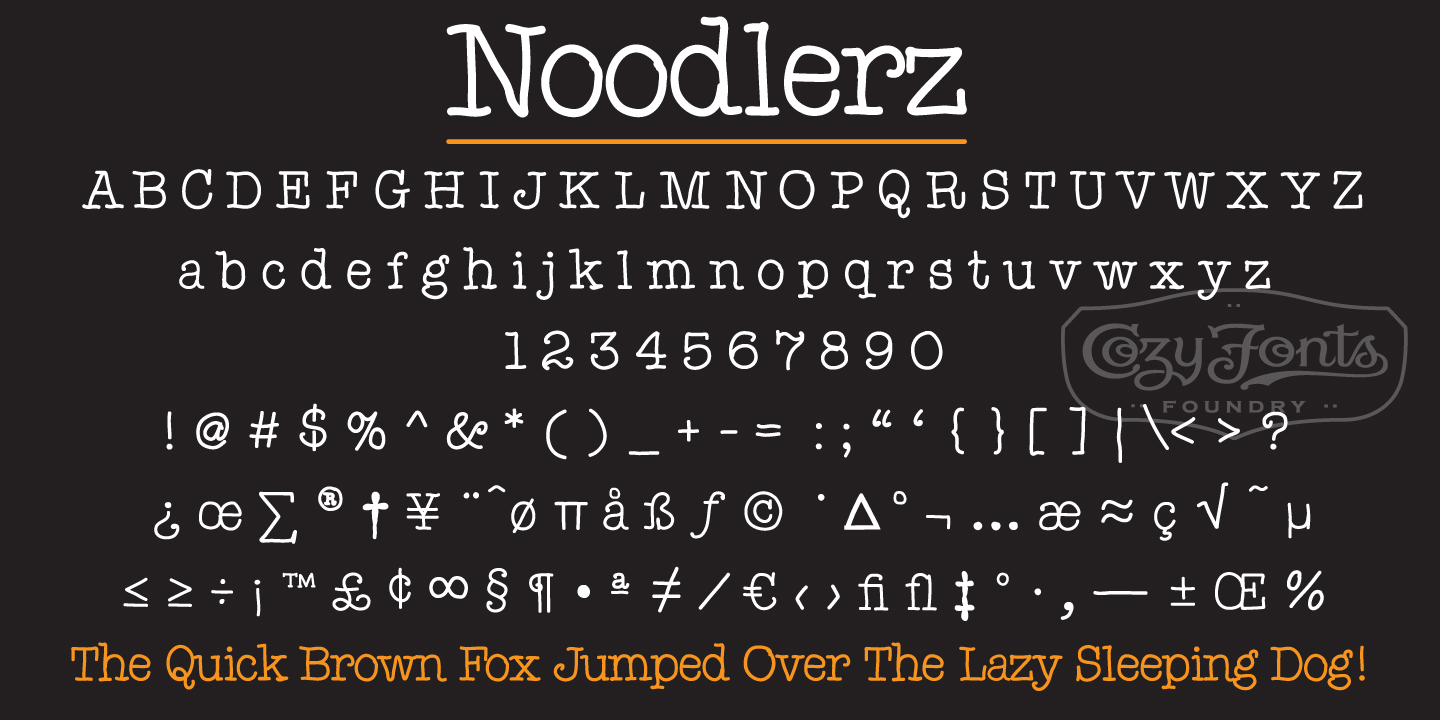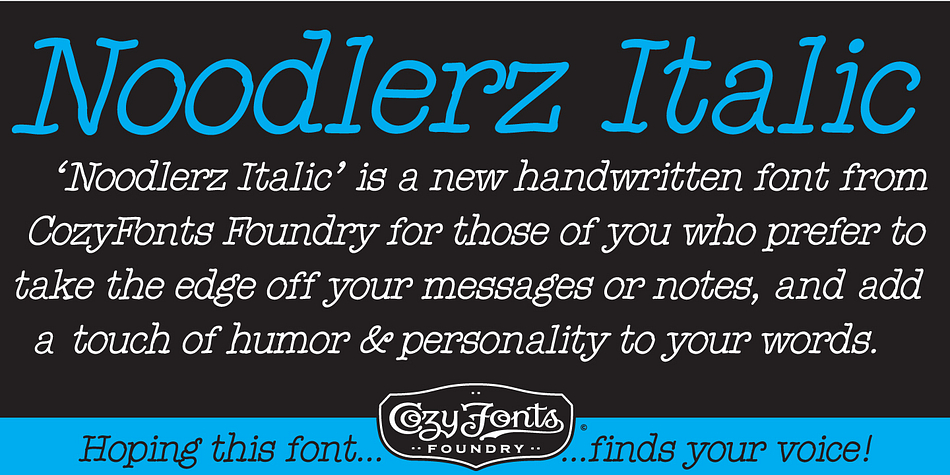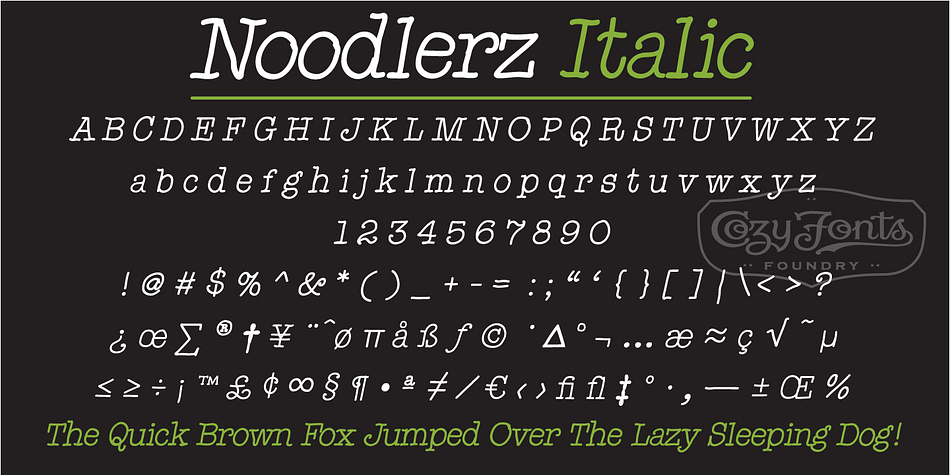
Noodlerz is a hand drawn font family. This typeface has two styles and was published by CozyFonts Foundry.
Noodlerz & Noodlerz Italic is a handwritten font family designed by Tom Nikosey, an American Graphic Designer specializing in Typographic Design and Illustration. CozyFonts is Tom’s intro into the world of font design. Noodlerz Family is a casual, handwritten font.